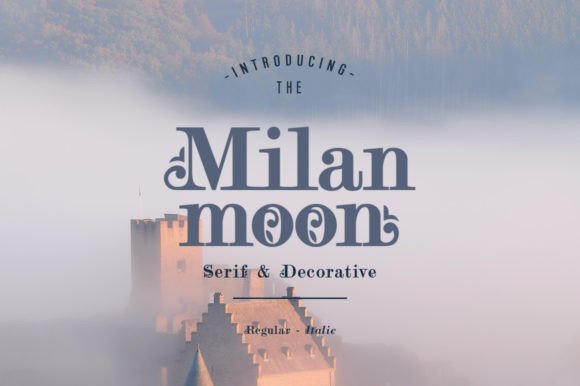
Welcome to the realm of Milanmoon, a font family that dances across the digital canvas with elegance and grace. Imagine words woven with delicate threads of ink, seamlessly blending into your designs. Milanmoon's serif artistry is a testament to the timeless allure of classic typography. Each letterform is a symphony of balanced strokes, neither too thin nor too thick, harmoniously arranged to captivate the eyes.
Crafted with the utmost care by yantodesign, Milanmoon is a PUA-encoded font, granting you effortless access to a world of glyphs and ligatures. Unleash your creativity and let your words bloom with endless possibilities. Milanmoon is more than just a font; it's an invitation to transform the ordinary into the extraordinary.
Whether you're a seasoned designer seeking to elevate your projects or a budding enthusiast yearning for a touch of class, Milanmoon is your perfect companion. Its versatility knows no bounds, effortlessly adapting to a myriad of design styles. From branding and logos to invitations and social media, Milanmoon adds a touch of sophistication that leaves a lasting impression.
Embrace Milanmoon and embark on a typographic journey where elegance meets versatility. Let your words dance with style, leaving a trail of beauty that resonates with your audience. Make Milanmoon the cornerstone of your creative endeavors and unlock the true potential of your designs.